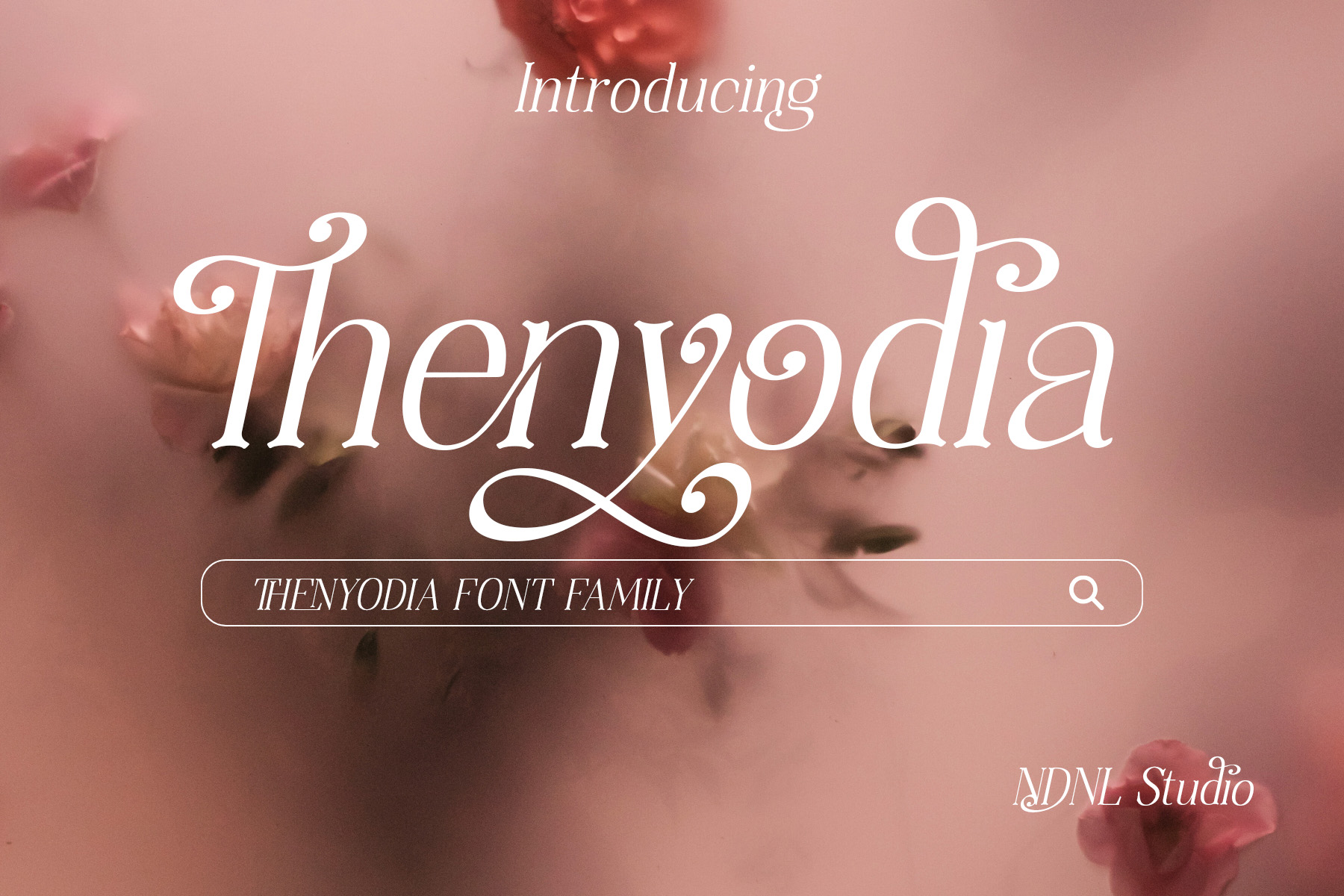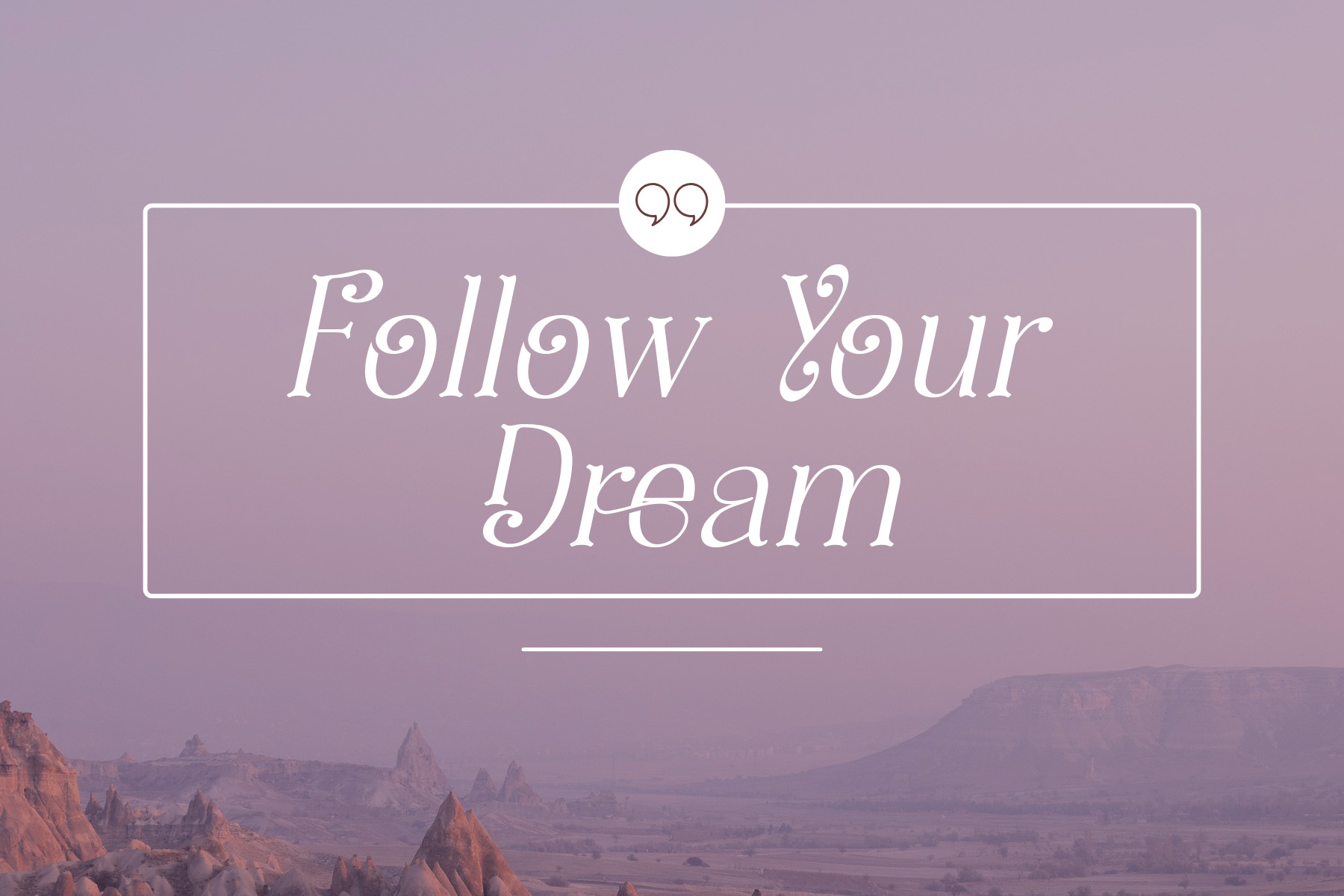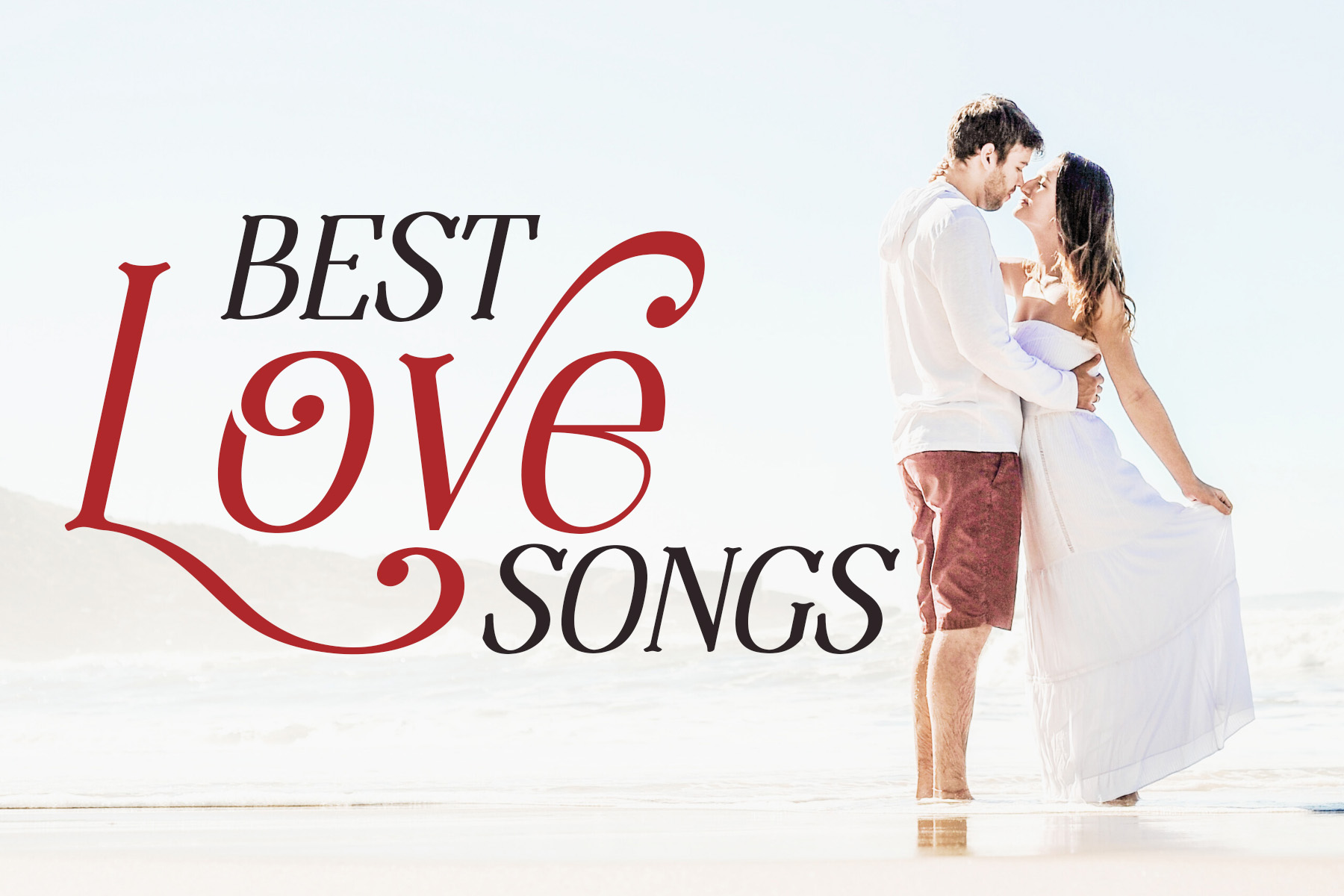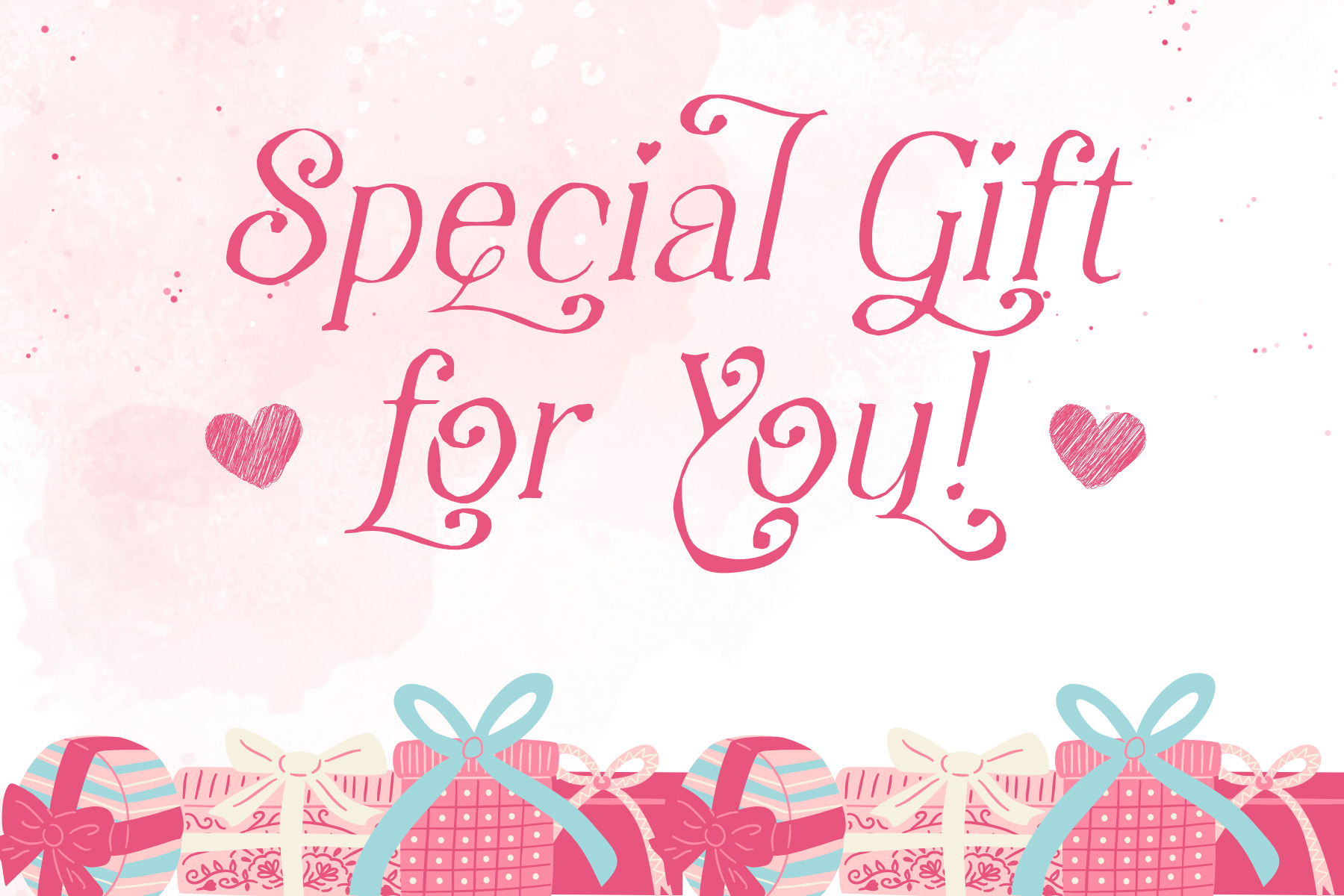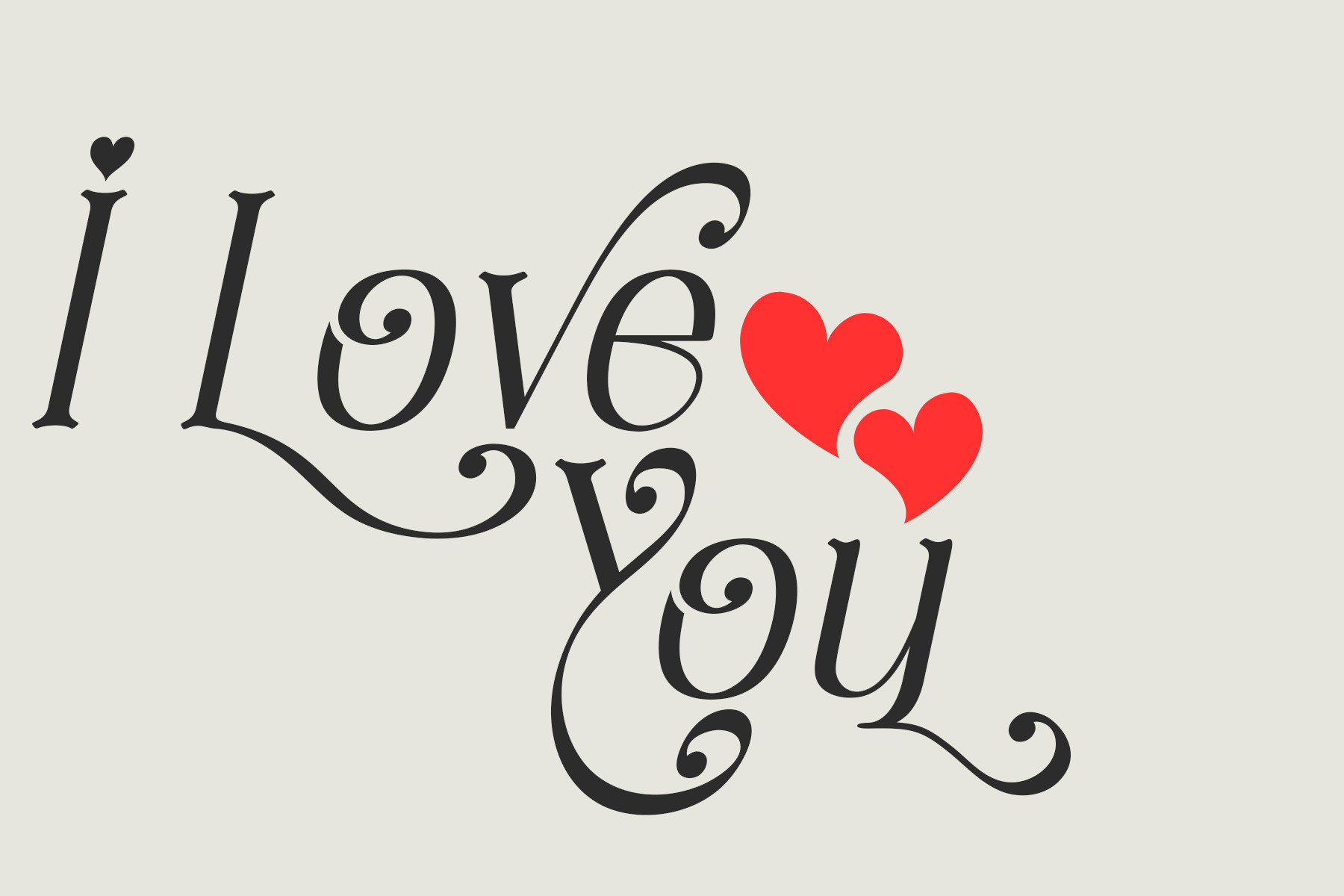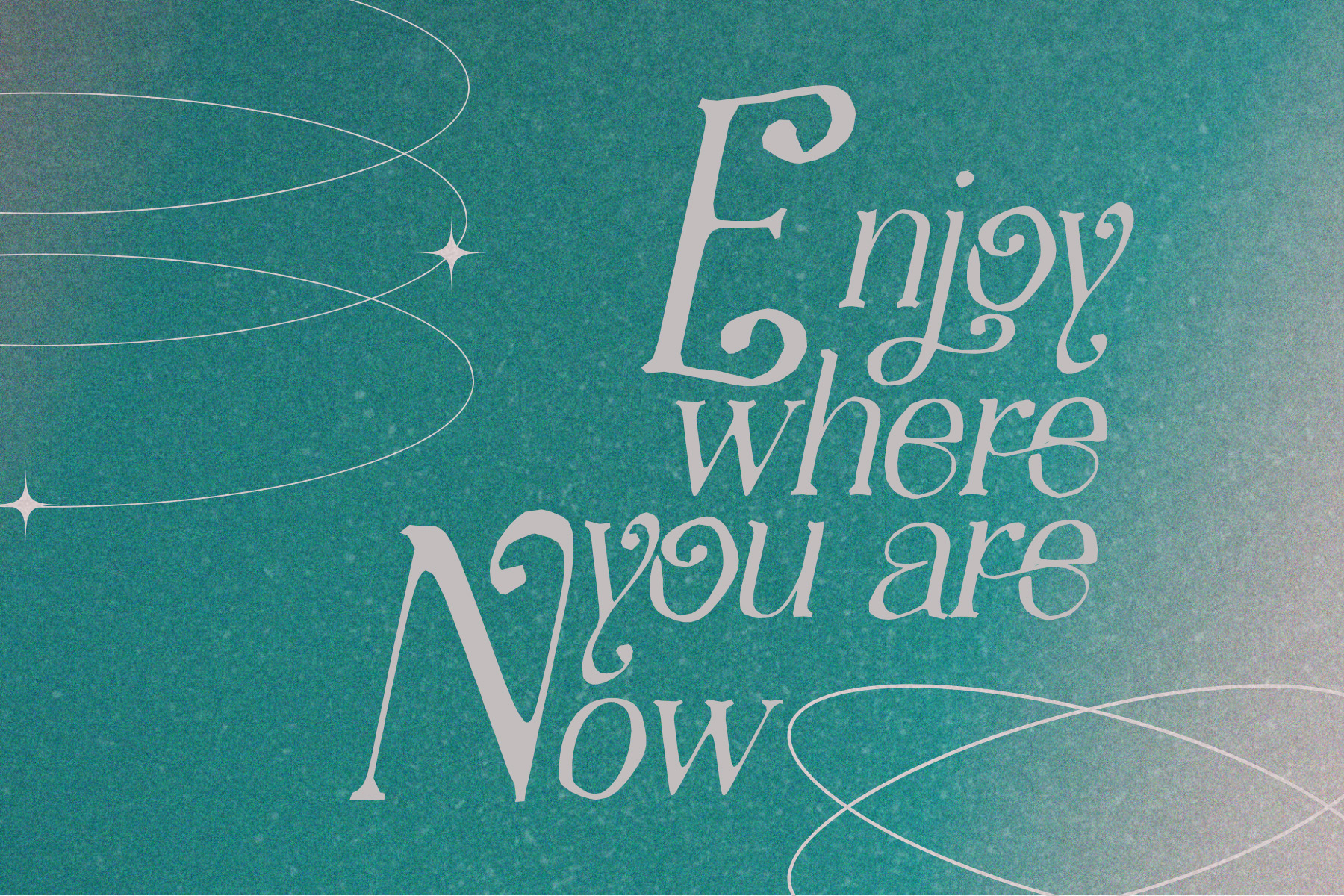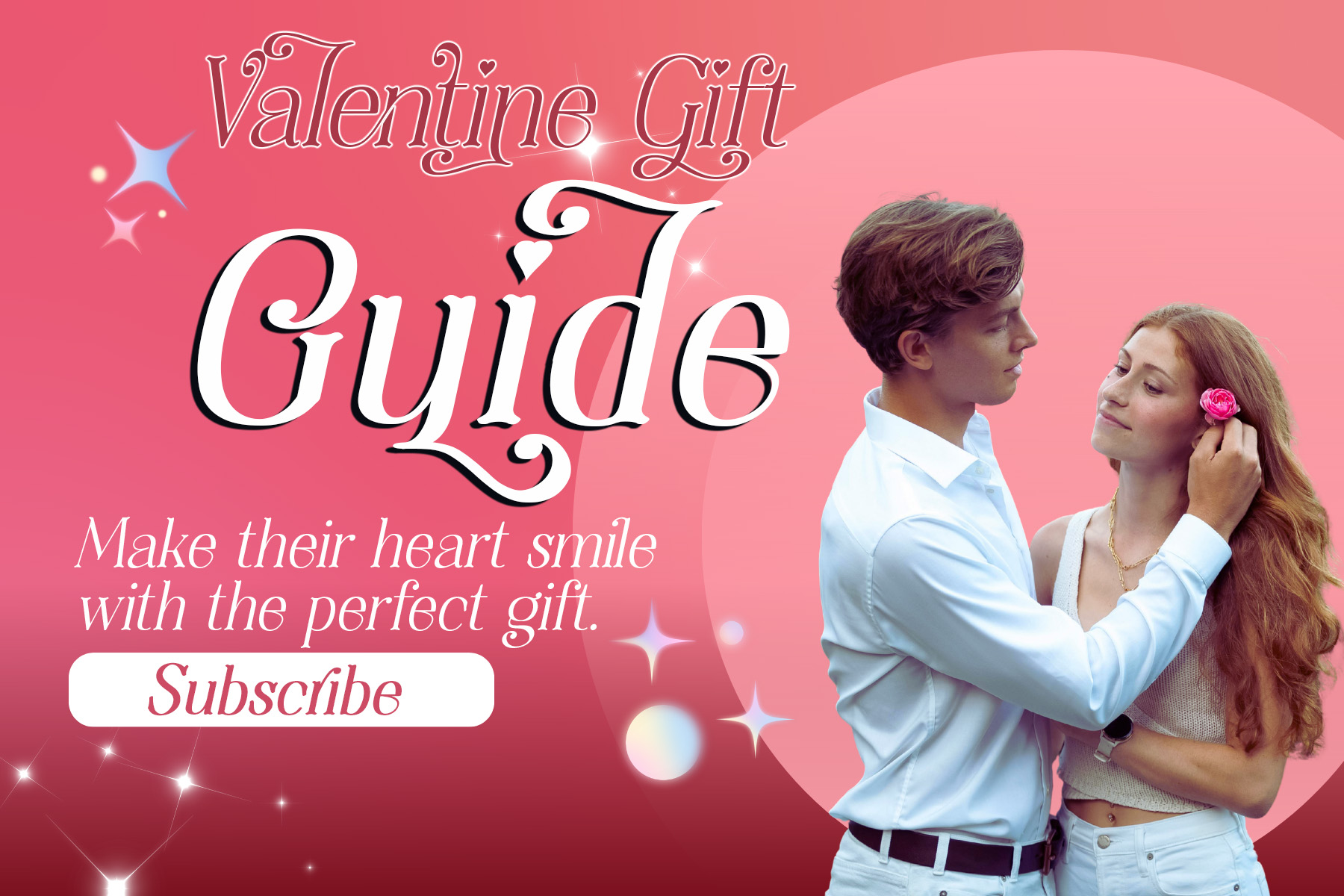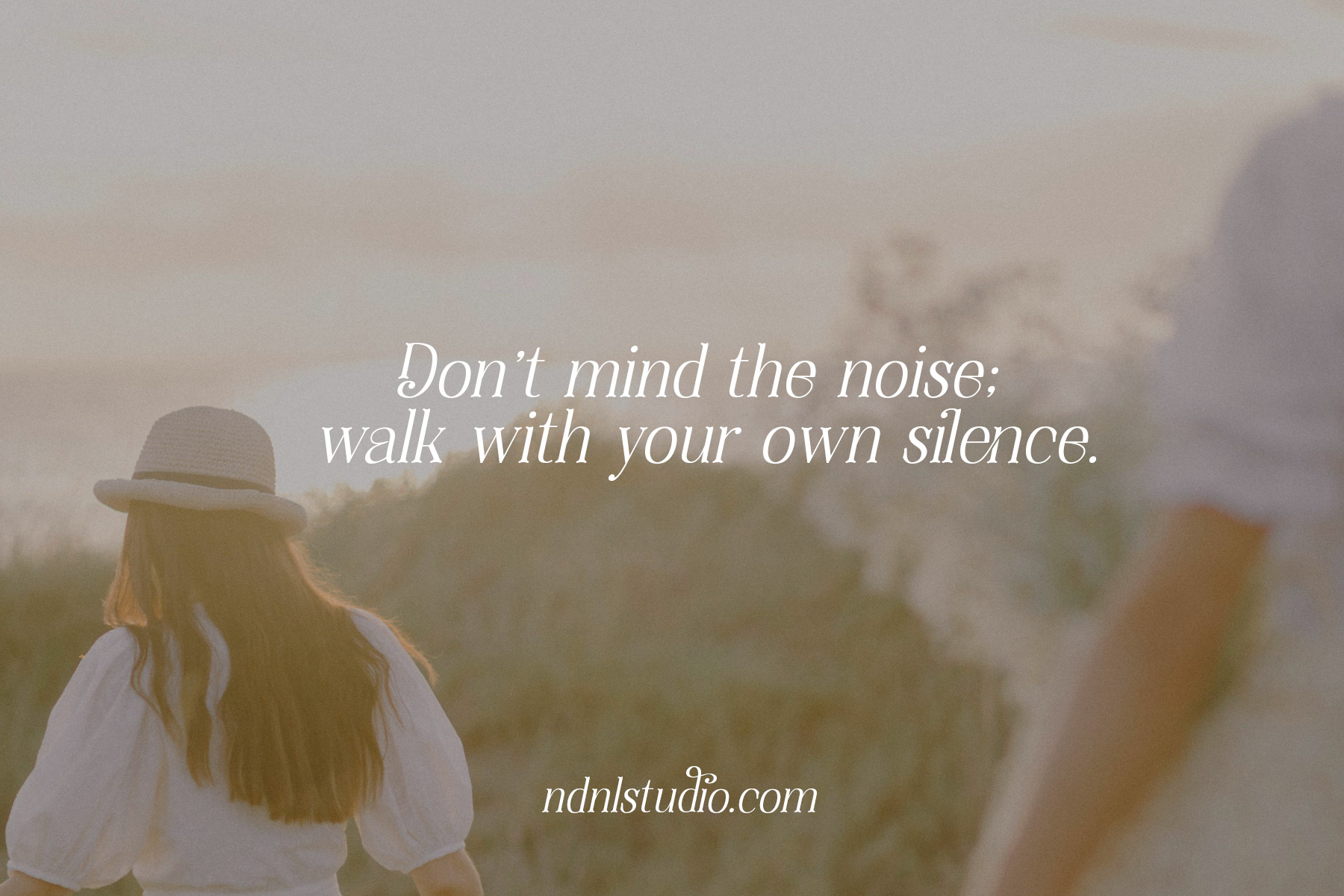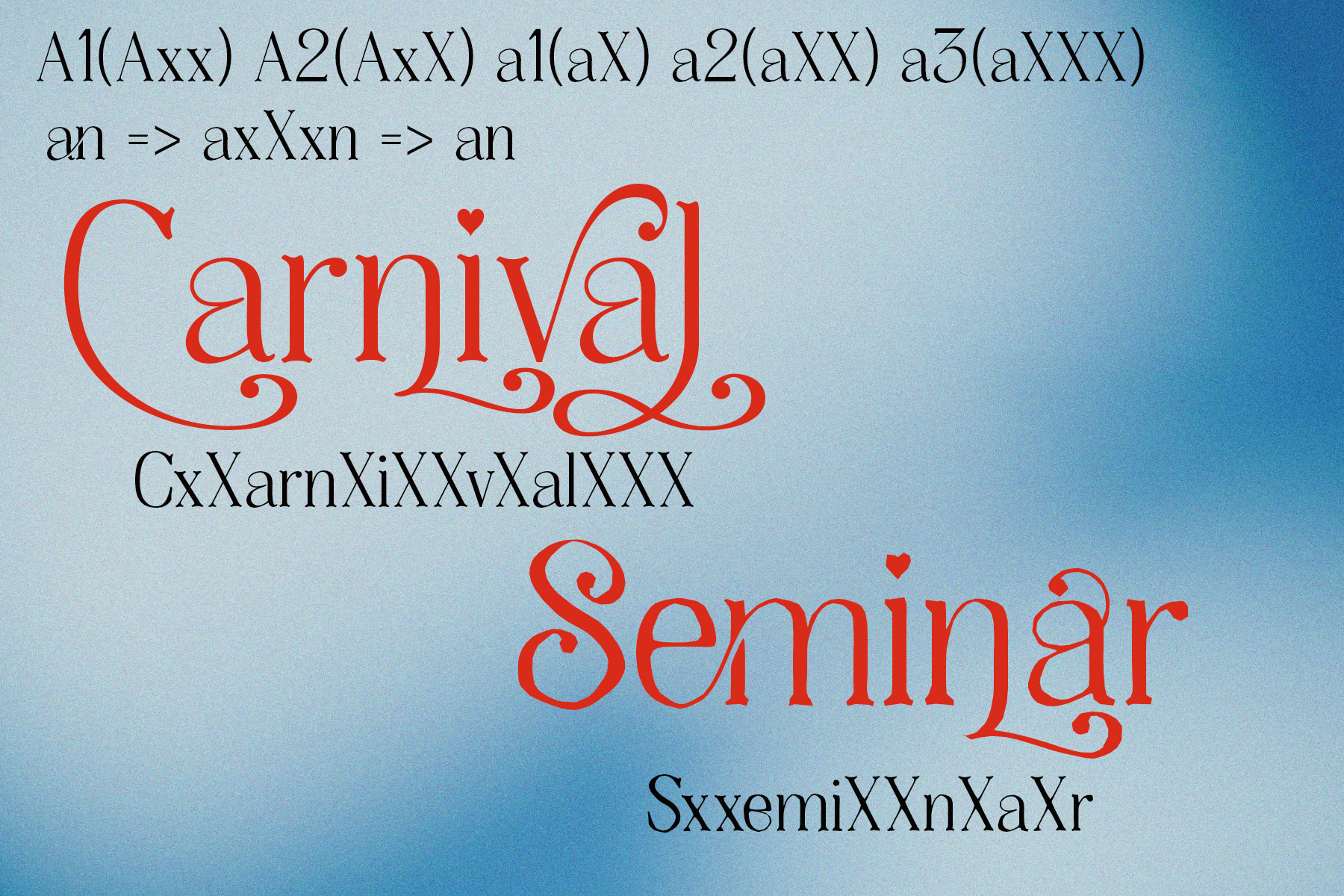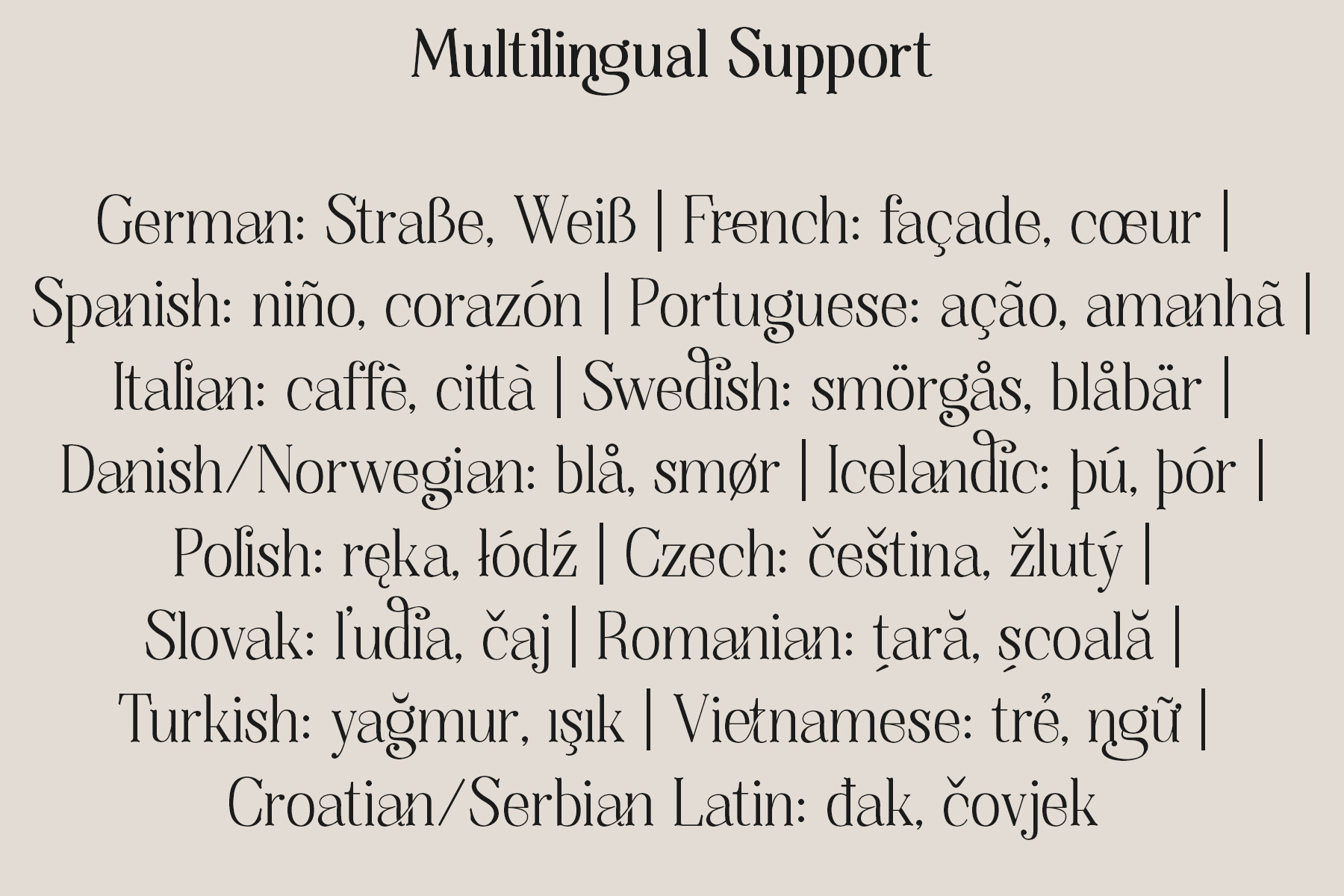
Introducing Thenyodia!
Thenyodia is a decorative serif typeface that expresses elegance and charm through its flowing curves and delicate swashes. Each letterform is carefully crafted to create a romantic and sophisticated atmosphere, making the typeface visually captivating.
Inspired by classic typography yet refined for modern design needs, Thenyodia works beautifully for logos, branding, wedding invitations, fashion editorials, product packaging, and stylish headlines. This typeface adds a graceful and expressive touch to any creative project.